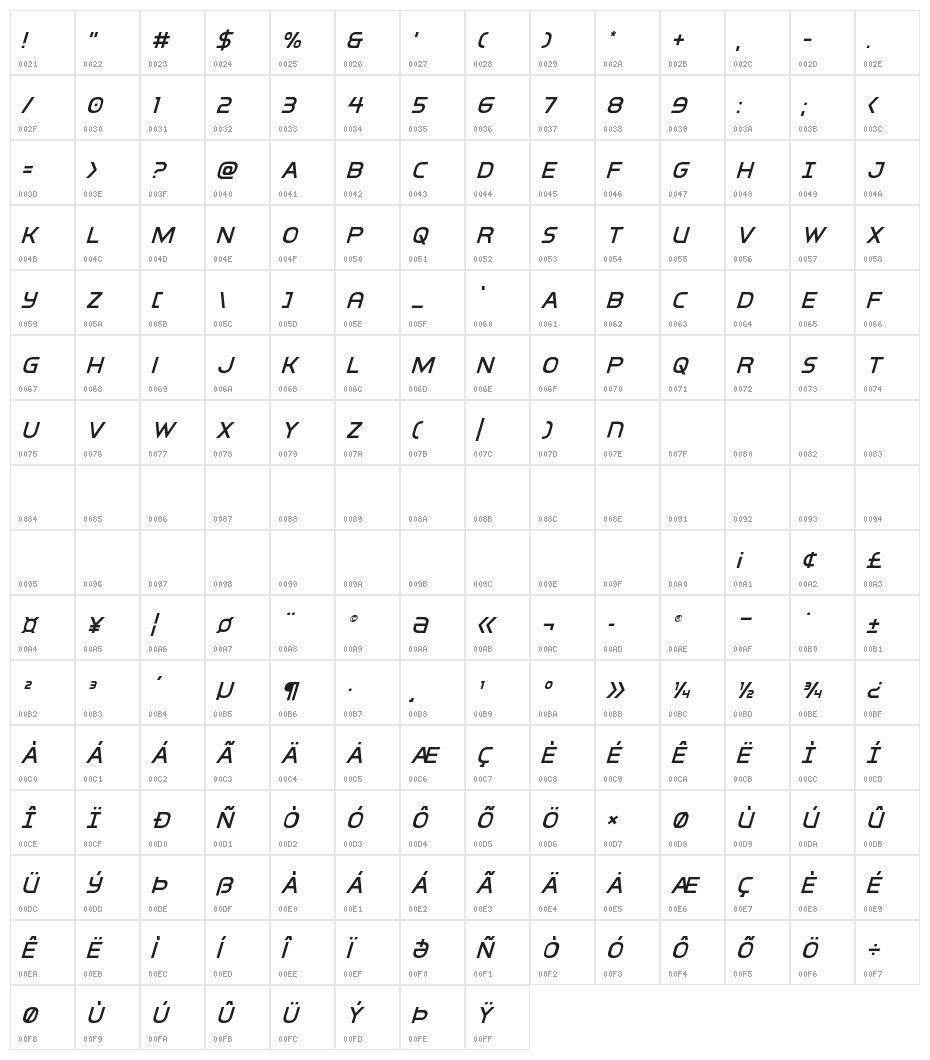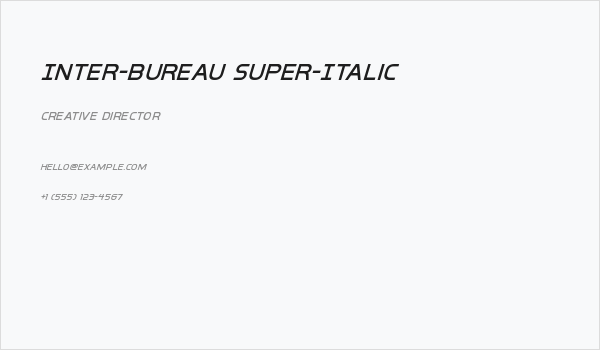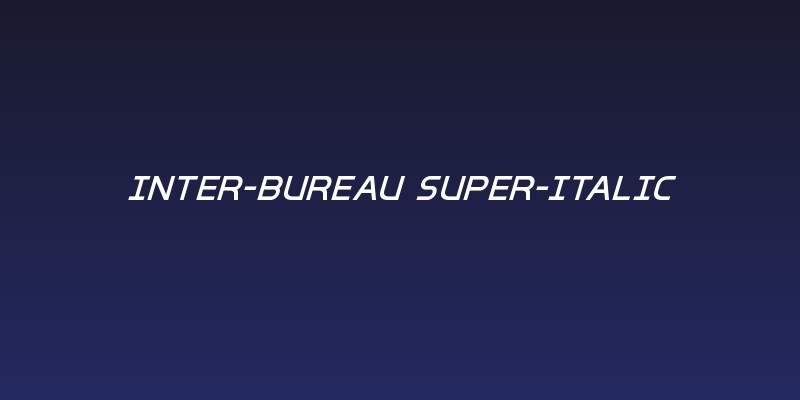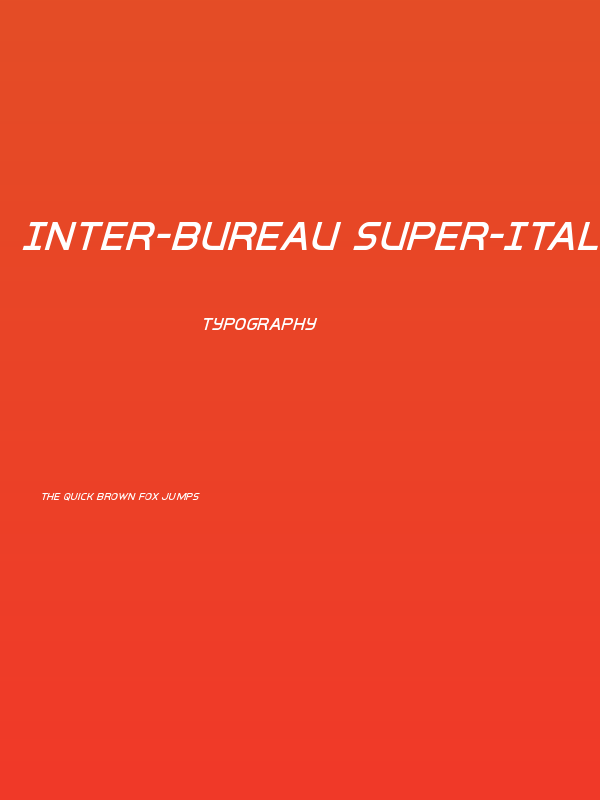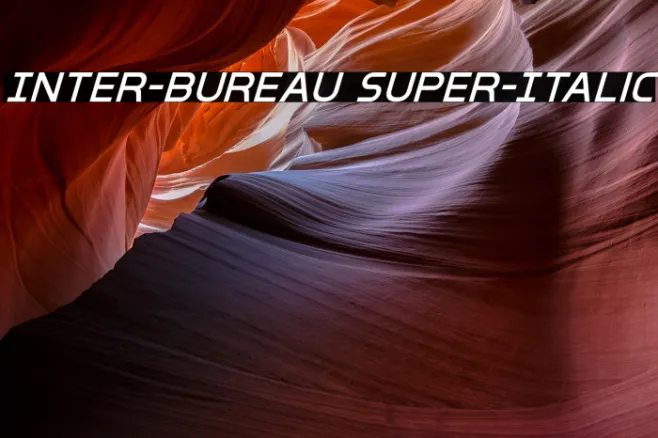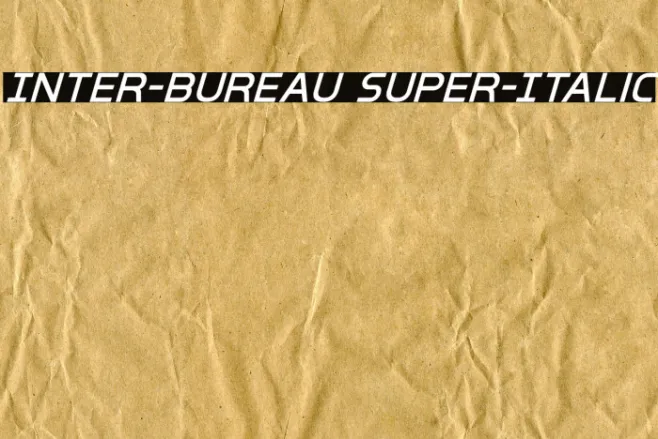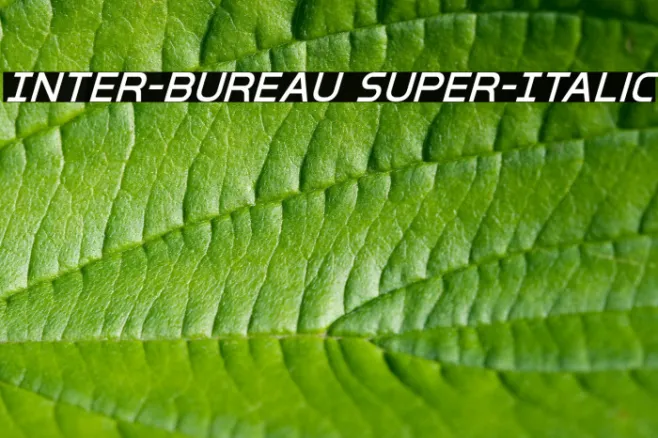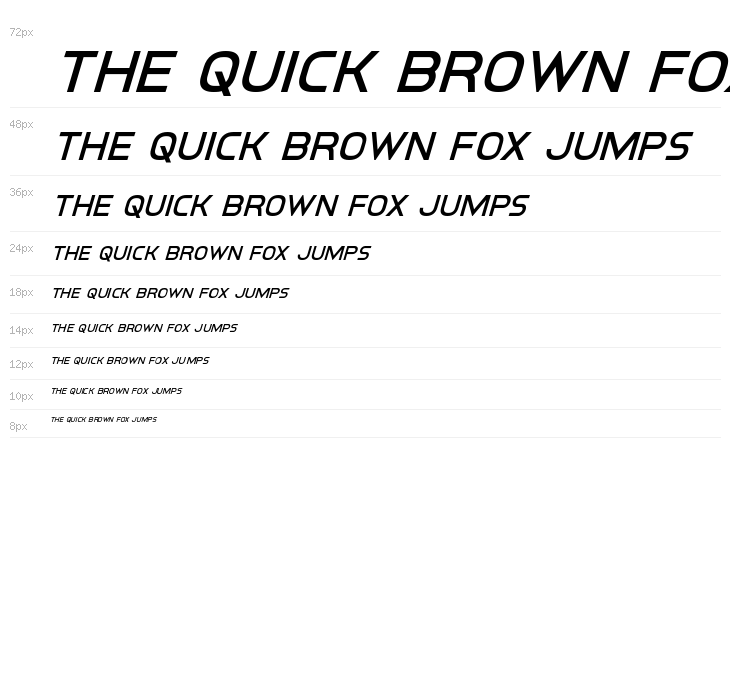
Inter-Bureau Super-Italic Font
Inter-Bureau Super-Italic Description
This font exhibits a sleek, modern design with a distinct italic slant, giving it a dynamic and forward-moving appearance. The characters are clean and sans-serif, with smooth curves and sharp edges that enhance readability while maintaining a stylish look. The uppercase and lowercase letters are well-proportioned, and the numerals are clear and consistent in style. Special characters are included, maintaining the same aesthetic as the alphanumeric characters. This font is ideal for projects that require a contemporary and professional feel.
| Use Case | Headlines, Logos, Digital interfaces |
| Proposed Projects | Ideal for branding, advertising, digital interfaces, and editorial design. |